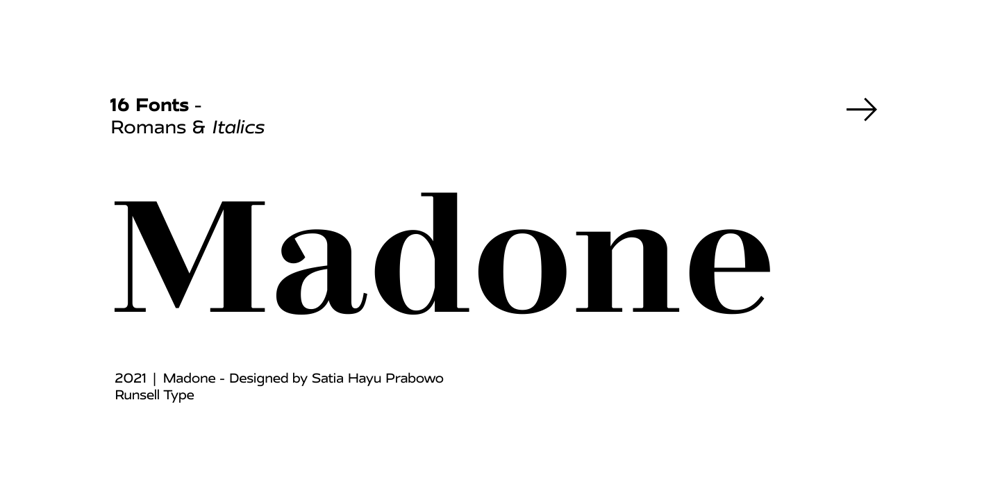
Madone
Madone font
Madone Font Family was designed by Satia Hayu Prabowo and published by Runsell Type. Madone contains 18 styles and family package options. Madone is a medium-contrast typeface with unique and reduce stems for terminals in several letters. The modern impression on Typeface is very supportive to perfect a design. Madone comes with 3 text and 5 display weights with each matching Italic. Contain several OpenType features: Stylistic Alternates and Figures Variation (fraction, tabular lining, numerator, denominator). Each style includes 600+ glyphs supporting all Western, Eastern and Central European languages also Cyrillic (over 20 languages supported).